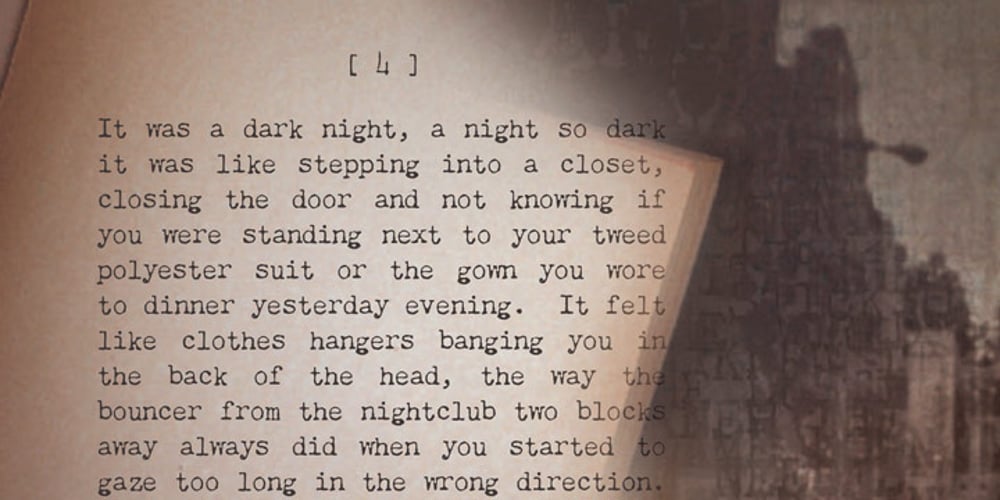
Chandler 42 Font Family was designed by Steve Mehallo and published by steve mehallo. Chandler 42 contains 8 styles and family package options. One of the first messy typewriter fonts to hit the market, Chandler 42 was compiled with forensic care from the voluminous output of a circa 1942 portable. All the eccentric personality of this particular machine is intact: a slightly angled “m,” filled in gaps in the most-used characters; even the number “4” is reminiscent of gasoline pump numbers of its day. Chandler 42 features edges meticulously redrafted by hand, fully developed Western character sets and is available in 4 weights, plus obliques. Chandler 42 is everything you need to type a 1940s business letter, prep your own vintage facilities report or write that hard boiled novel you’ve been planning to start.